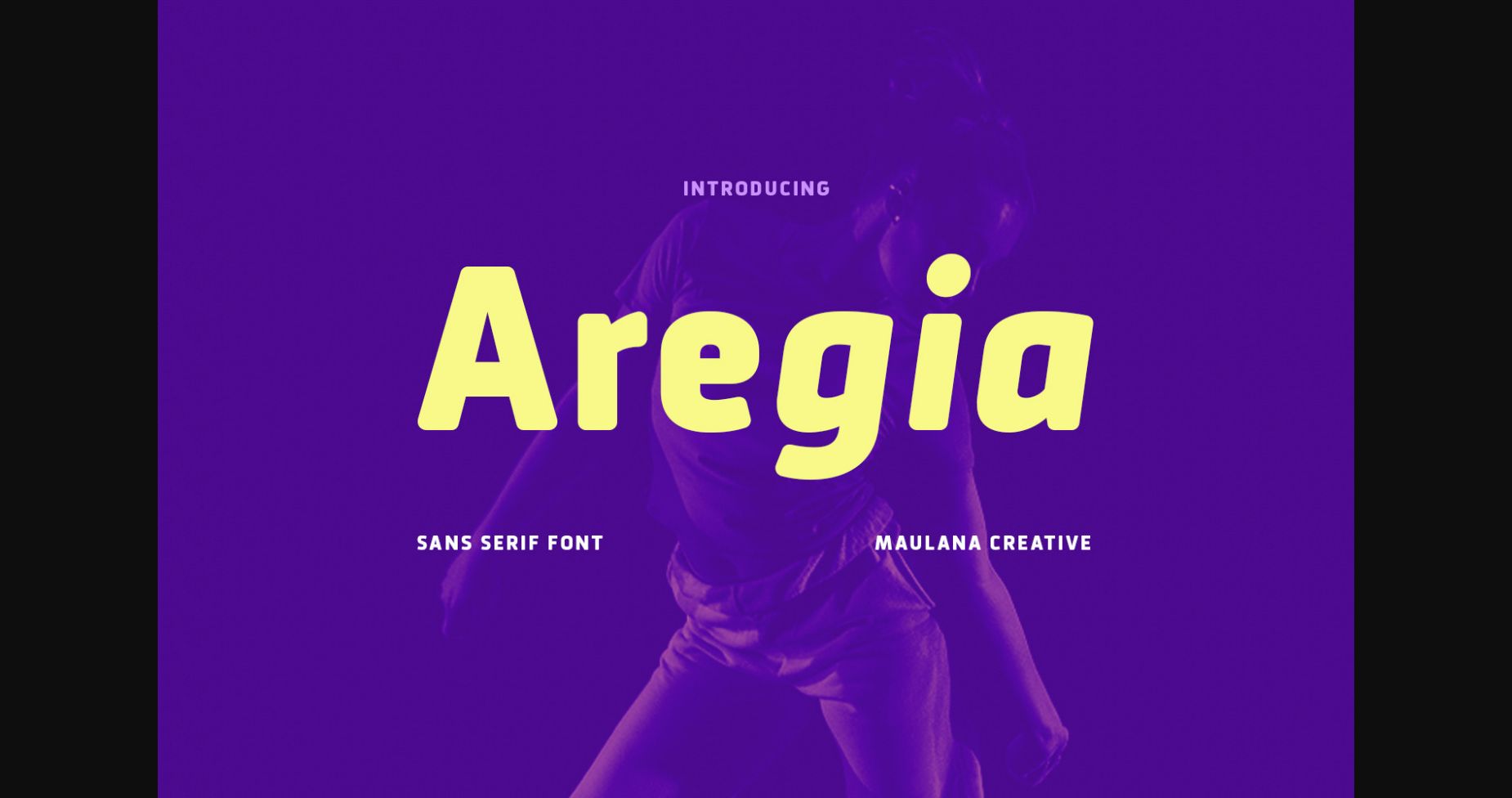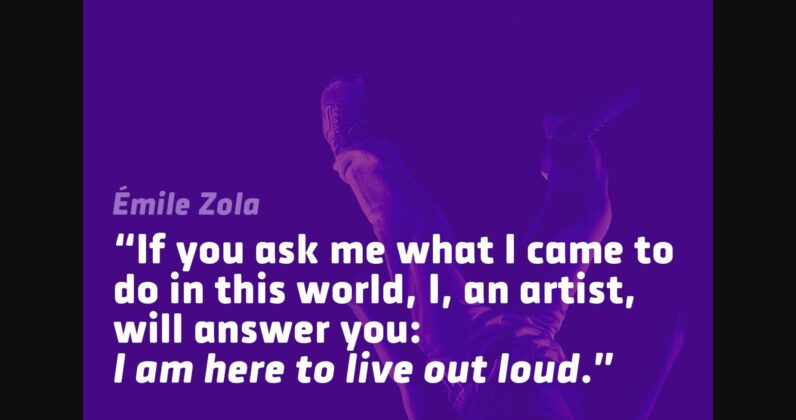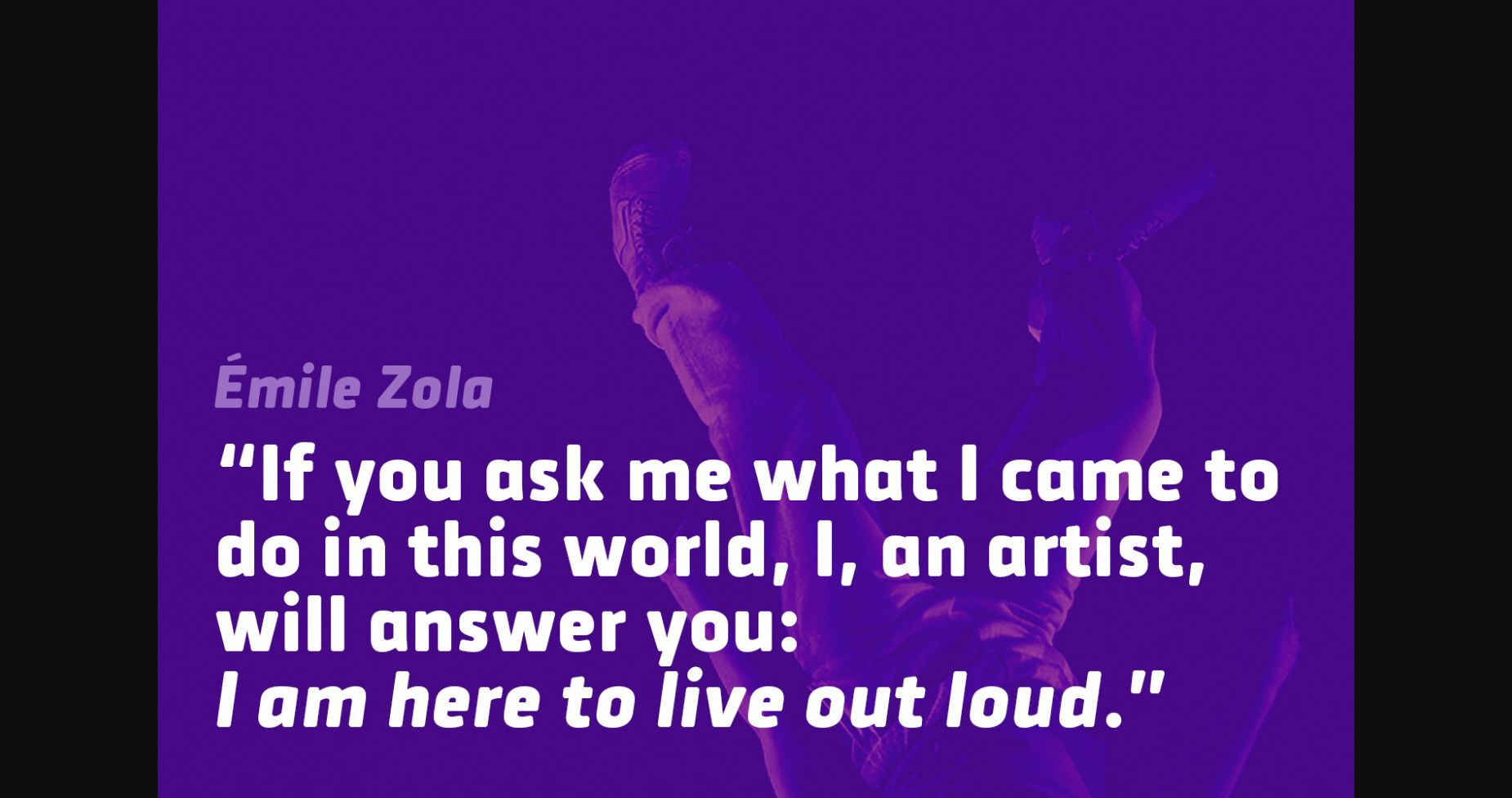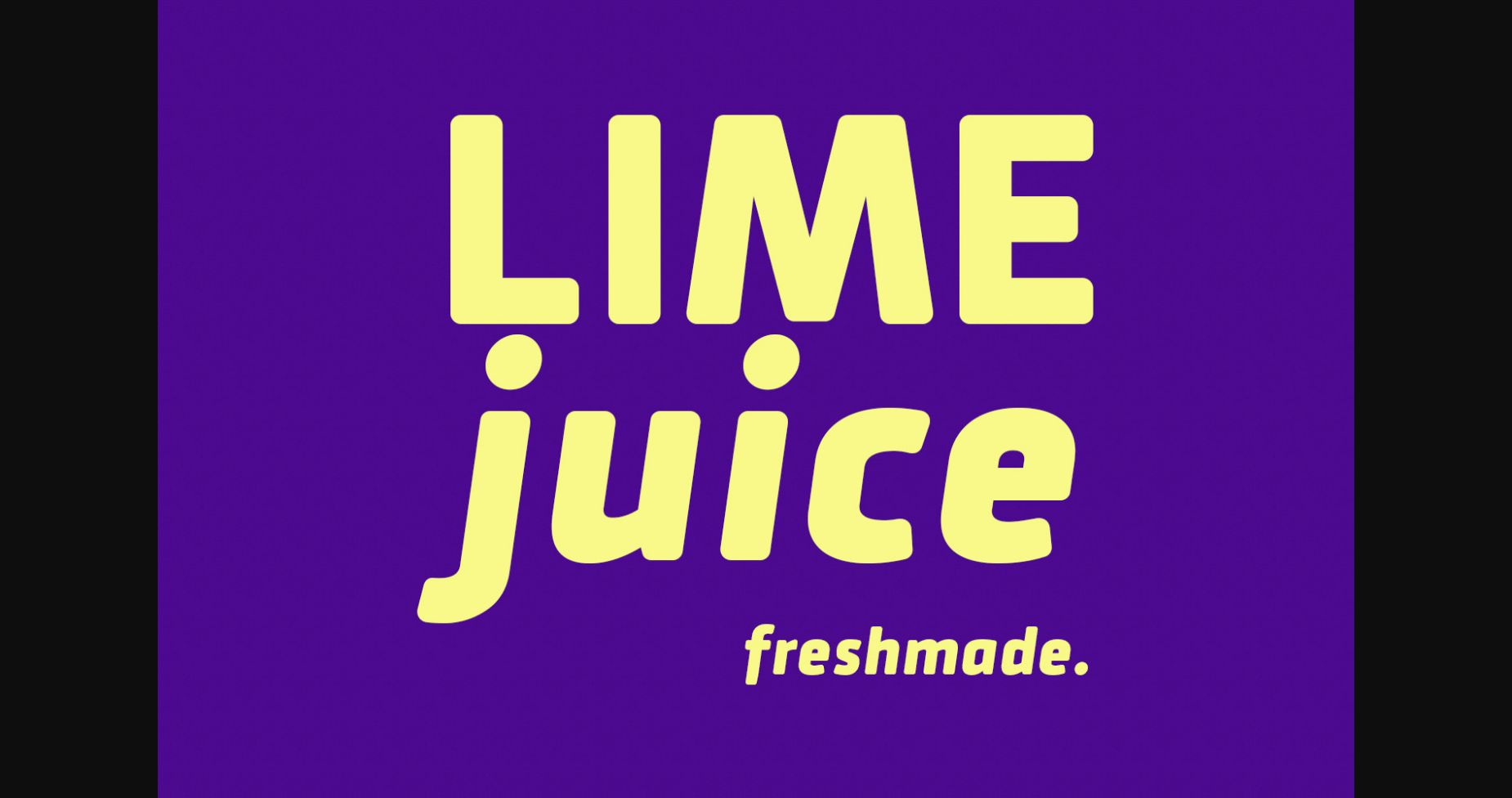
About Aregia Font
Aregia is an attractive and stylish serif font that is the epitome of timeless sophistication. With clean, sharp lines and a balanced letterform, this font exudes confidence and elegance. Perfect for branding, editorial design, and any project that requires a touch of class, this font is sure to impress.